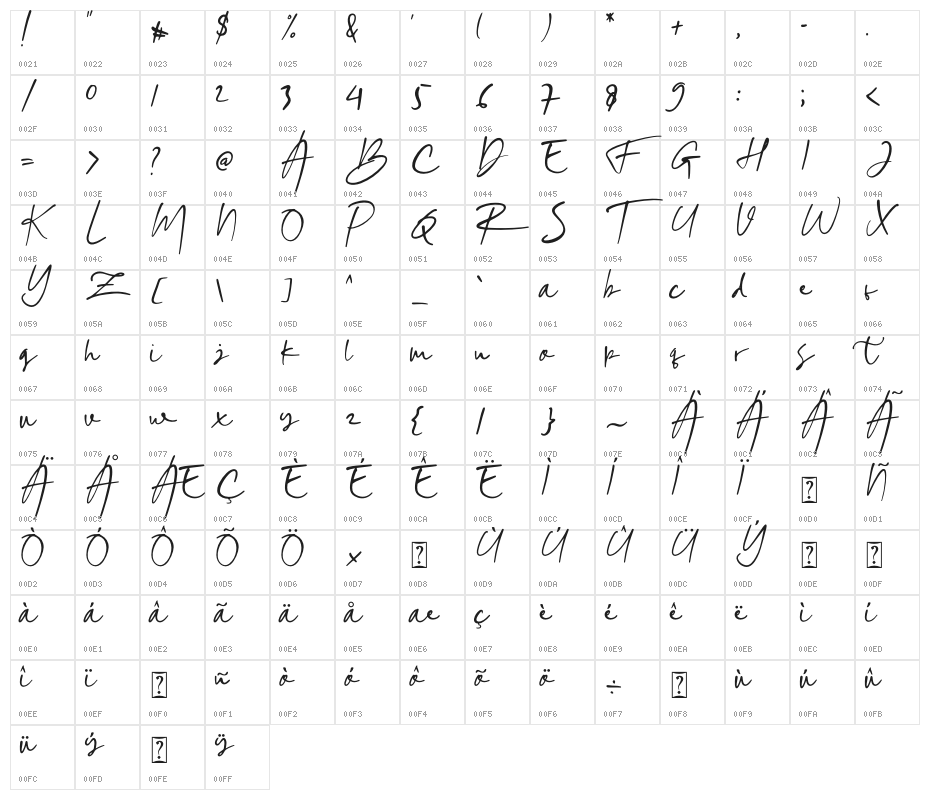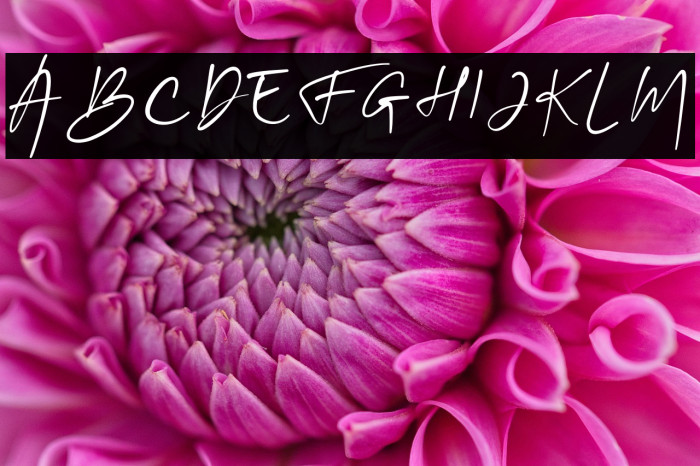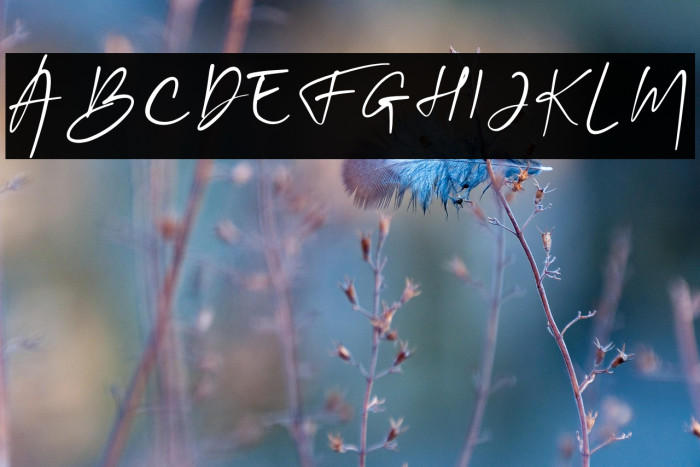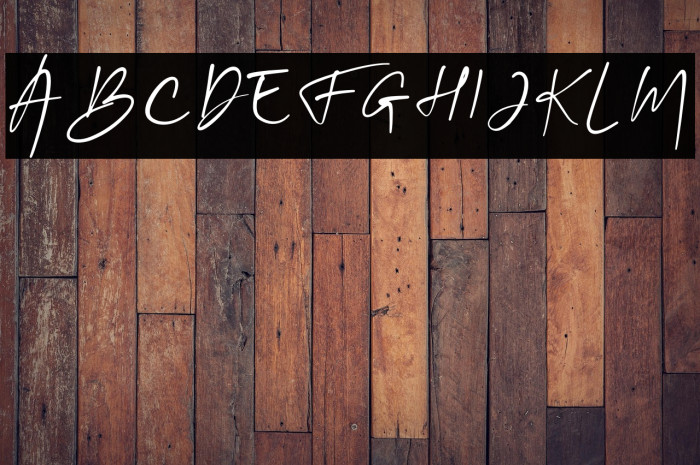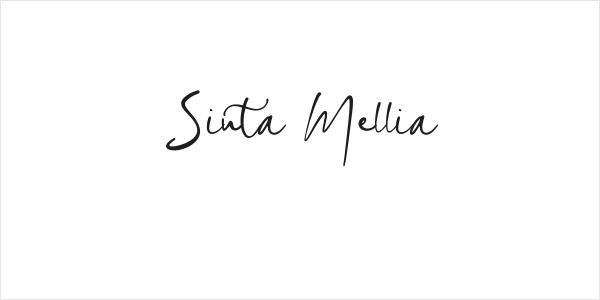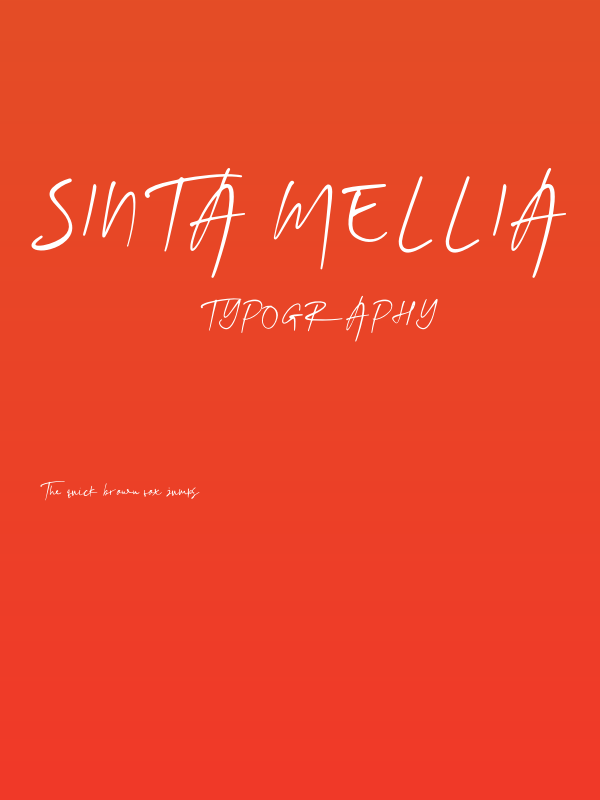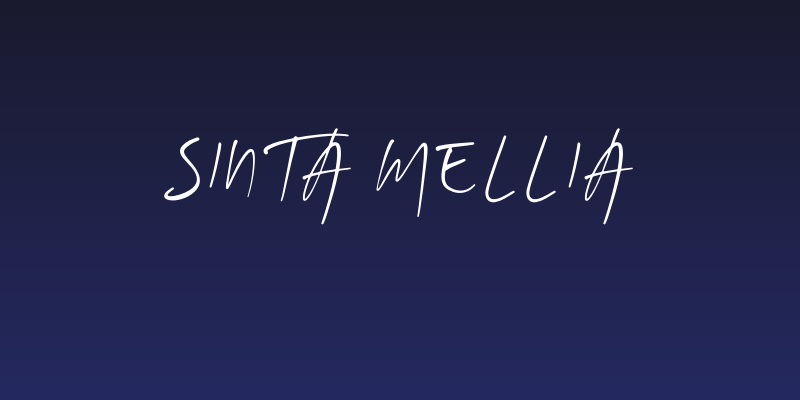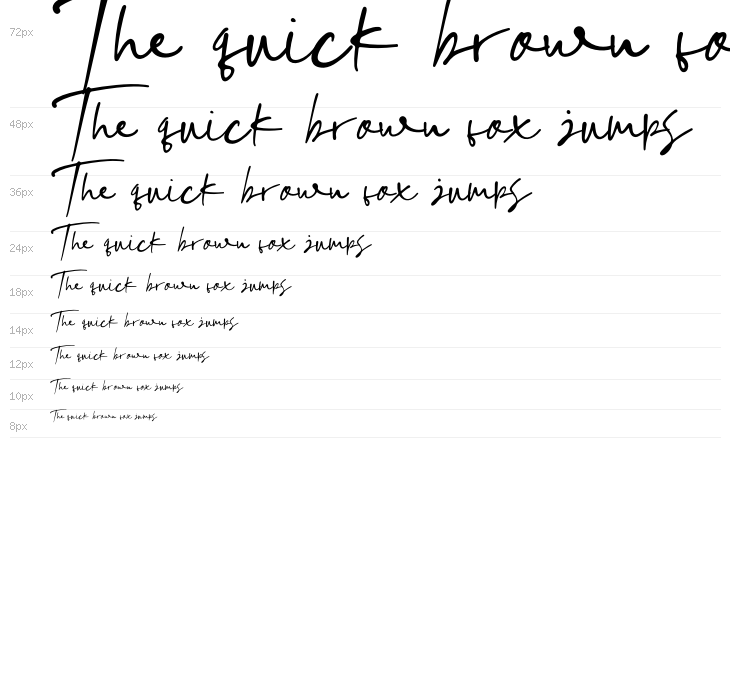
Sinta Mellia Font
Sinta Mellia Description
This font exudes a lively and dynamic handwritten style, characterized by its fluid and cursive strokes. The letters are elegantly connected, giving it a natural and personal touch. The uppercase letters maintain a consistent height, while the lowercase letters exhibit a playful variation in size and slant, adding to the font's charm. The numerals and special characters are crafted with the same flowing style, ensuring a cohesive look across all text. This font's organic and informal appearance makes it ideal for projects that require a personal or artistic flair.
| Proposed Projects | Ideal for greeting cards, personal branding, invitations, and artistic projects. |